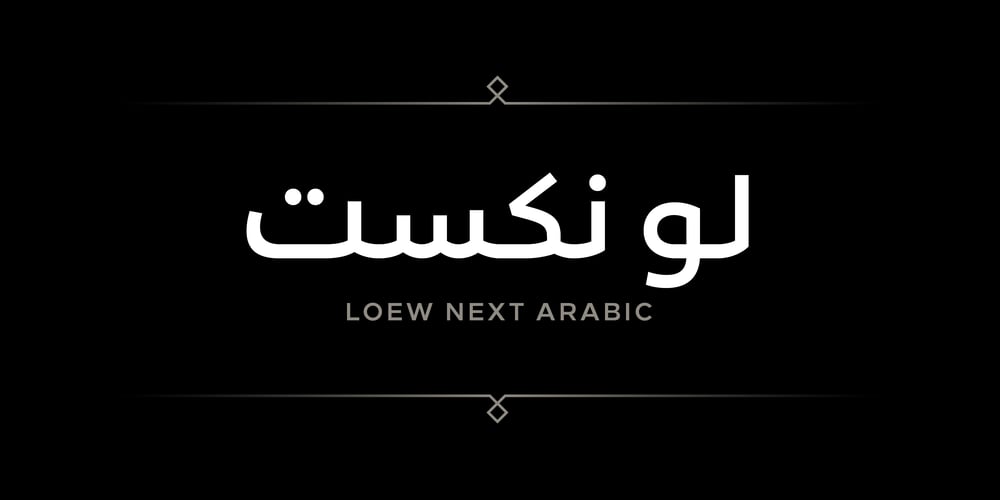
Loew Next Arabic
Loew Next Arabic font
Loew Next Arabic Font Family was designed by Jonathan Hill and published by The Northern Block. Loew Next Arabic contains 8 styles and family package options. Loew Next Arabic is the modern, honest and straightforward go-to sans serif type family aimed at a global user. Painstakingly reworked from the original design Loew to further enhance the consistency of detail between individual weights and improve its compatibility to support non-latin script languages. Details include over 800 characters with alternative lowercase a, e, g and l. Seven variations of numerals, small caps with accents, Opentype features inferiors, superiors, fractions and language support covering Arabic, Western, South and Central Europe. For additional styles and language support visit Loew Next.